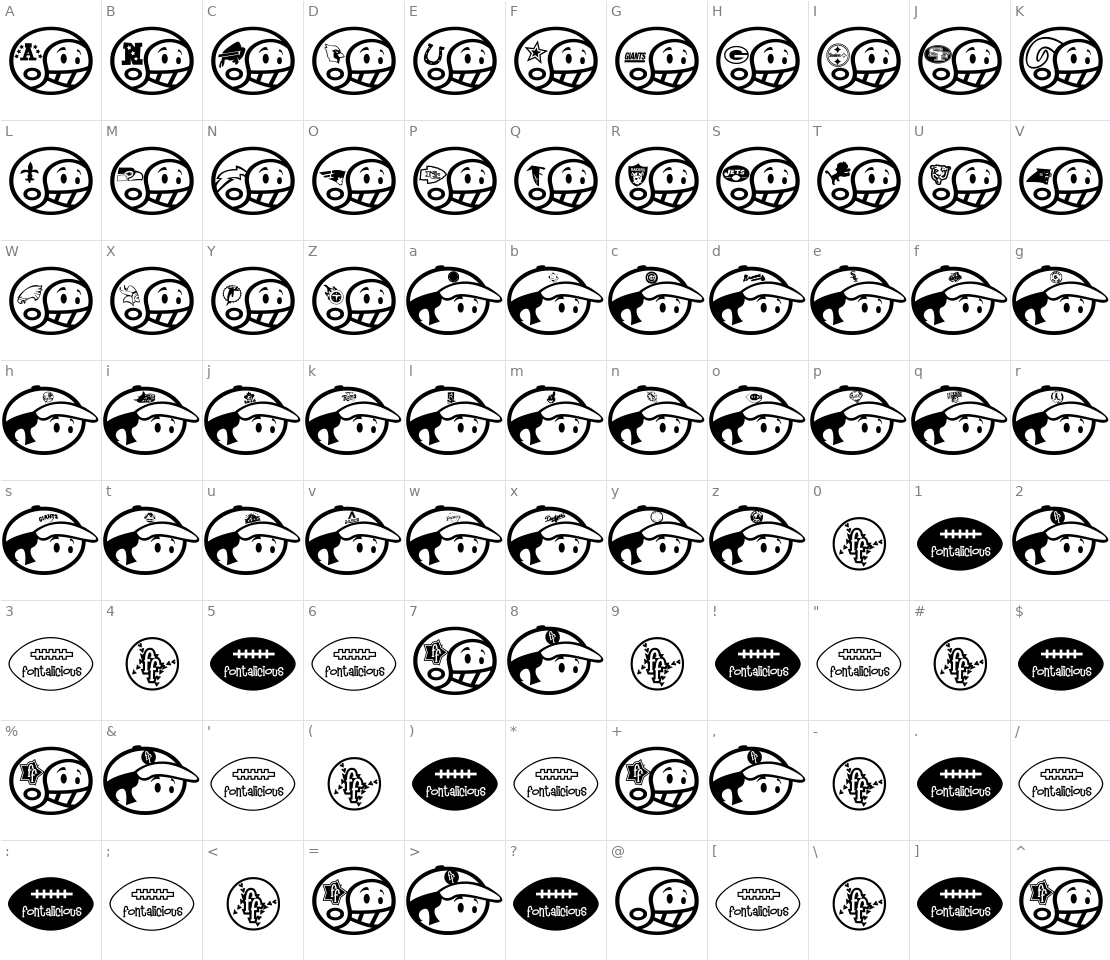
Sporto
Sporto is a novelty caps font from Fontalicious where each letter is built from cartoon faces wearing sports helmets and gear. It's less a traditional typeface and more a set of playful black-and-white character icons, useful for sports-themed graphics, kids' projects, or anywhere you want goofy helmet-clad faces standing in for actual letters.